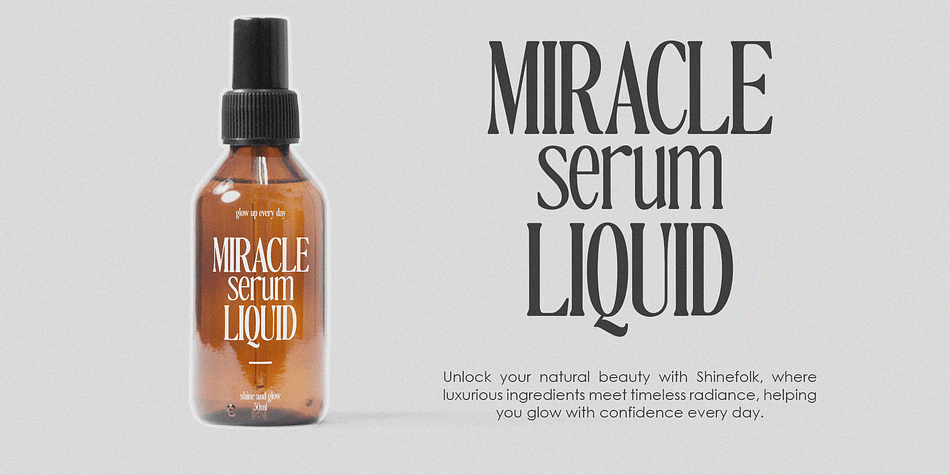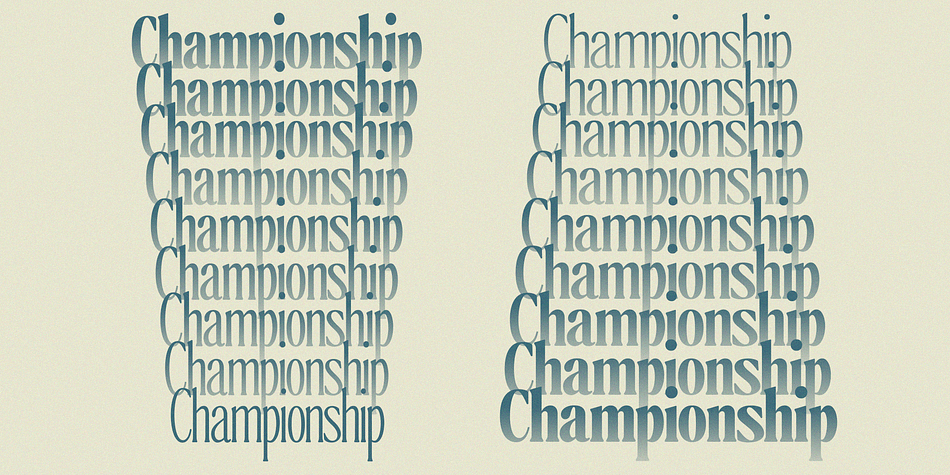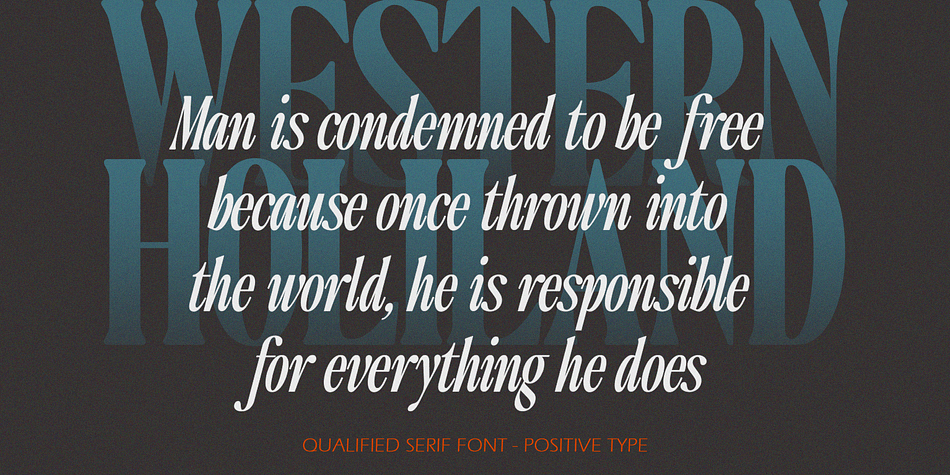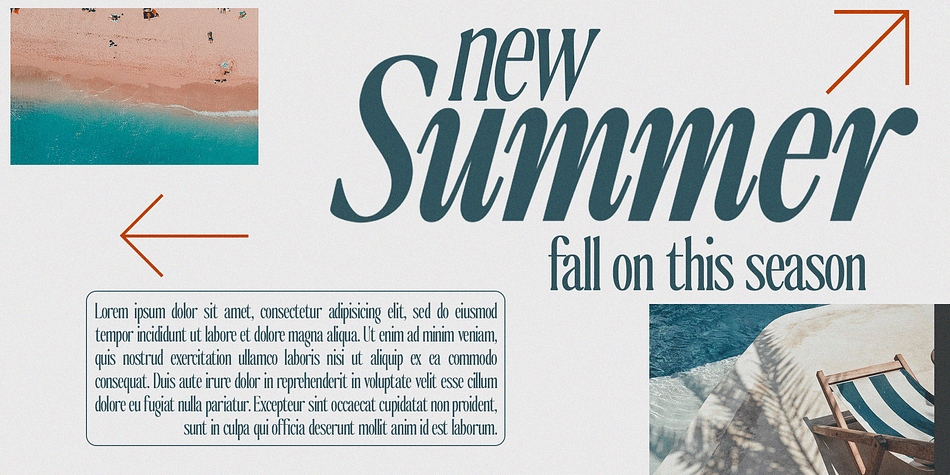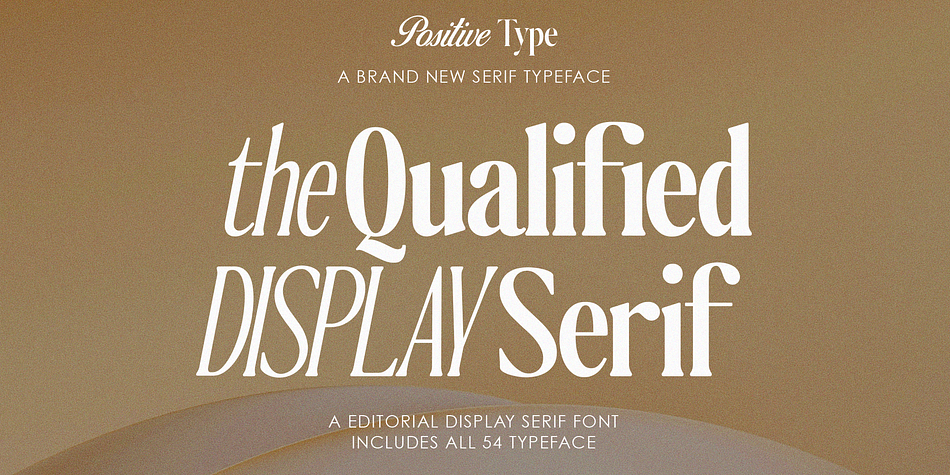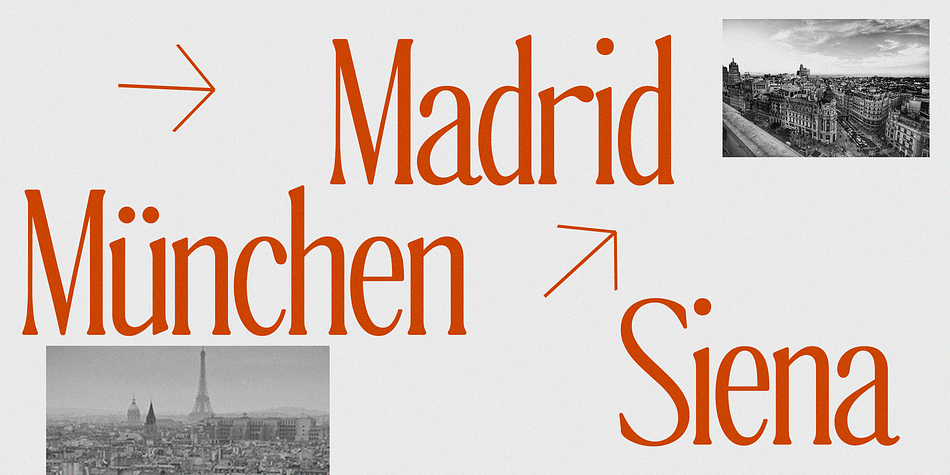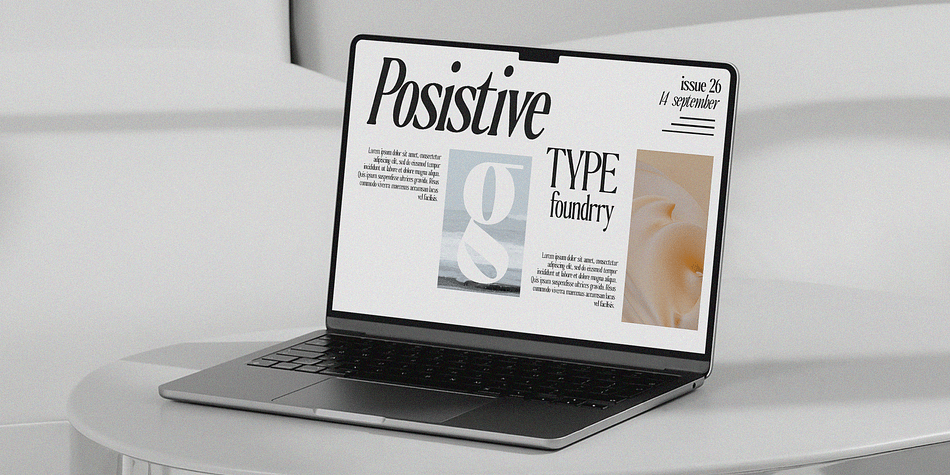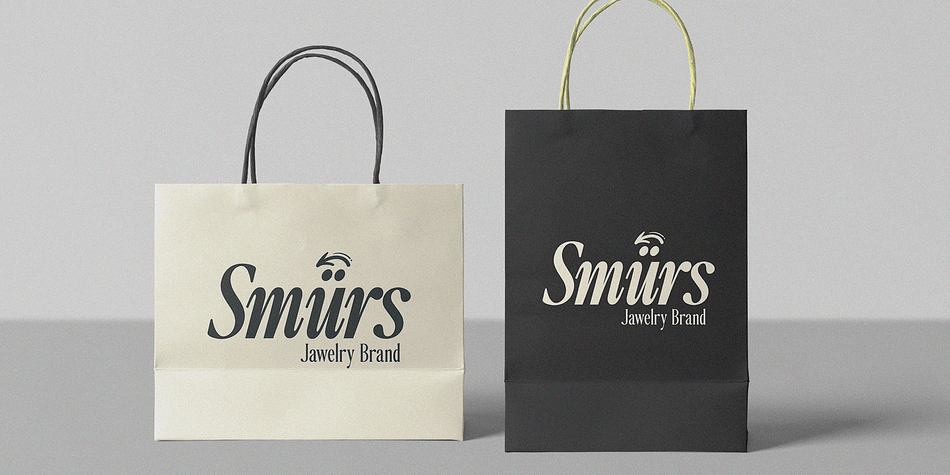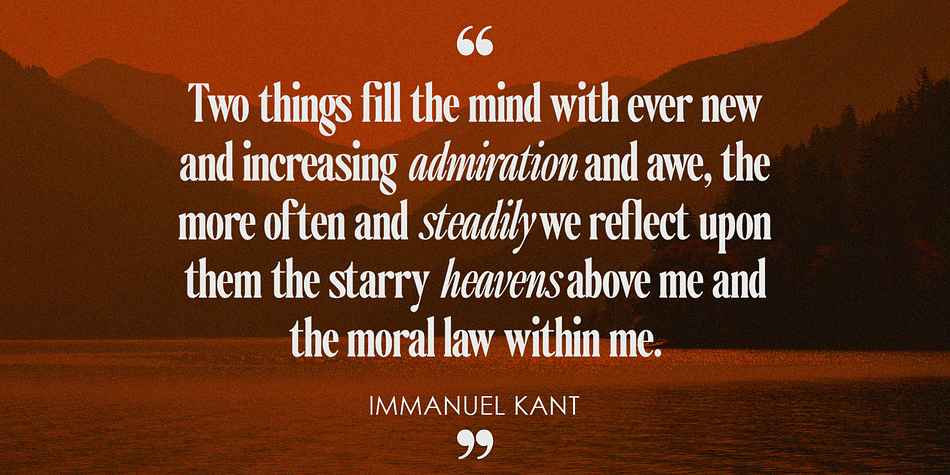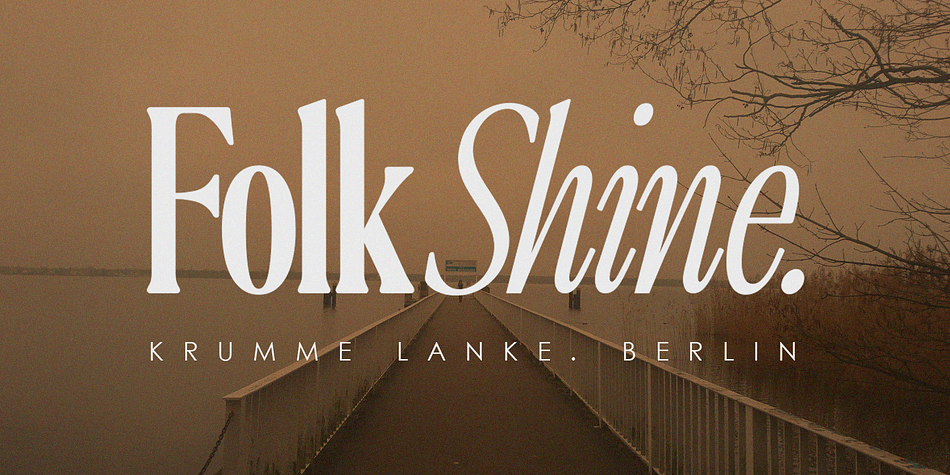
The Qualified
The Qualified is a serif font family. This typeface has fifty-four styles and was published by Positive TypeFoundry.
Positive TypeFoundry presents The Qualified Display Serif, a charming Font Family of high-contrast modern transitional serif typefaces that exude a captivating blend of contemporary sophistication and timeless elegance.
The Qualified Display Serif is a unique Variable serif font with a modern twist. With elegant and slender letterforms, this font offers a distinctive and captivating beauty. This font expands its use by providing thicknesses ranging from thin to black. Natural curves, flared stems, and characterful slanted stems develop as the thickness of the font increases. While its thinner thickness has lowered contrast and optical correction to create a warm and soft look. Featuring beautiful italics, excellent thickness, and broad language support.
The Qualified Display Serif comes with Variable Regular Slanted Condensed and Italic versions, which gives you the option to customize your design project to your needs. Use The Qualified Display Serif to add a professional feel to your designs and make them more appealing to your audience.